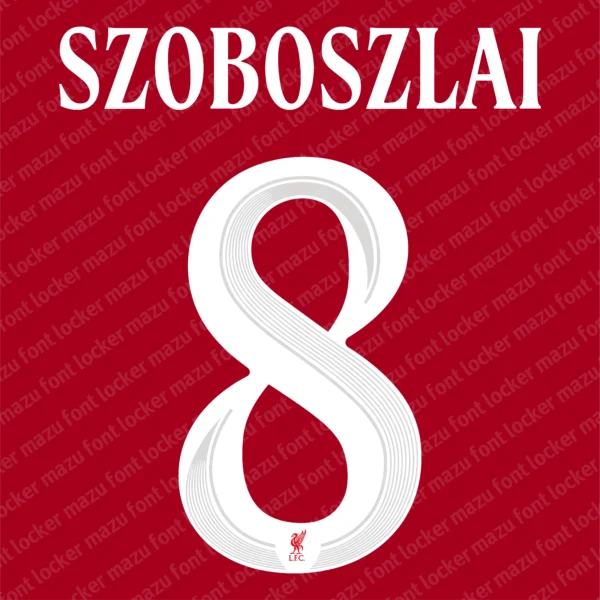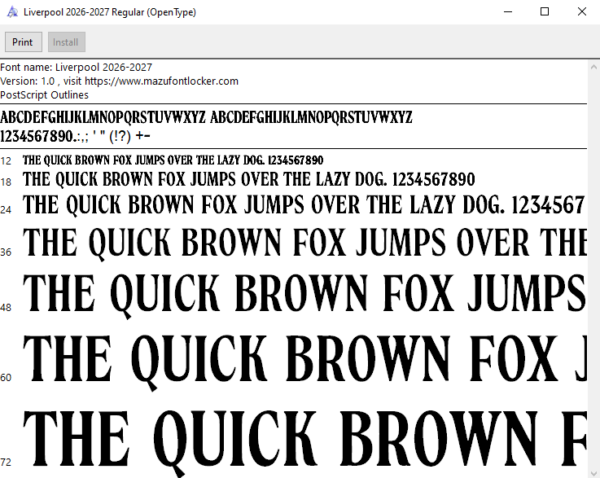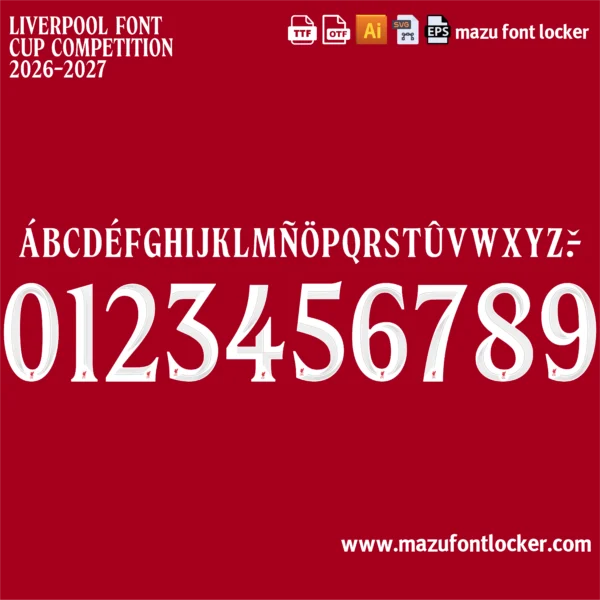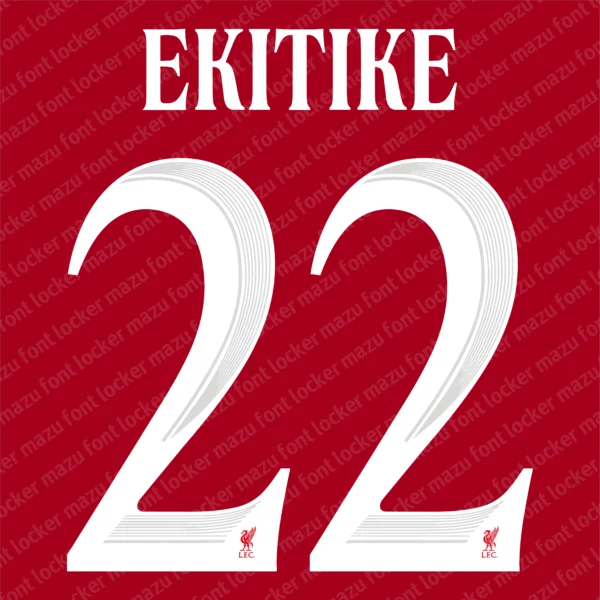
Liverpool 2026-2027 Font Vector – Epic Red Anfield Masterpiece
Liverpool 2026-2027 Font Vector – Authentic Reds Typeface
The Liverpool 2026-2027 Font Vector is a premium typeface that accurately recreates the official match lettering worn by Liverpool FC during the 2026-2027 Premier League season. This high-quality vector font kit captures the bold, modern, and iconic typography that represents the club’s continued ambition under the Anfield lights.
Designed for professional designers and passionate Liverpool fans, the Liverpool 2026-2027 Font Vector delivers perfect authenticity for creating realistic jersey mockups, fan merchandise, matchday posters, social media graphics, and much more. It blends beautifully with the club’s legendary red kits from this exciting era.
Why Choose Liverpool 2026-2027 Font Vector
This font stands out because of its sharp details and strong modern identity. Every letter and number is crafted to match the exact style used on the players’ shirts during the 2026-2027 season. Whether you are making realistic kit templates or dynamic football content, the Liverpool 2026-2027 Font Vector gives your designs that authentic Reds look.
The letterforms in the Liverpool 2026-2027 Font Vector are tall, bold, and highly readable. The strokes have a strong and controlled weight that looks powerful on the back of jerseys while maintaining excellent clarity and modern elegance.
The numerals use bold curves and firm edges, giving them a confident and premium appearance. This design ensures great legibility whether used in large print formats, digital mockups, or video content.
- Full uppercase A–Z and numbers 0–9 in authentic Liverpool 2026-2027 style
- Special Liverpool FC crest glyph for accurate shirt number detailing
- Multilingual Latin character support including diacritics
- Create highly realistic Liverpool 2026-2027 home and away jersey mockups with accurate lettering
- Design stunning season posters, score graphics, and squad announcements
- Produce custom Reds merchandise with a classic yet modern football aesthetic
- Includes the exact crest glyph placement used under player numbers
Liverpool in the 2026-2027 Season